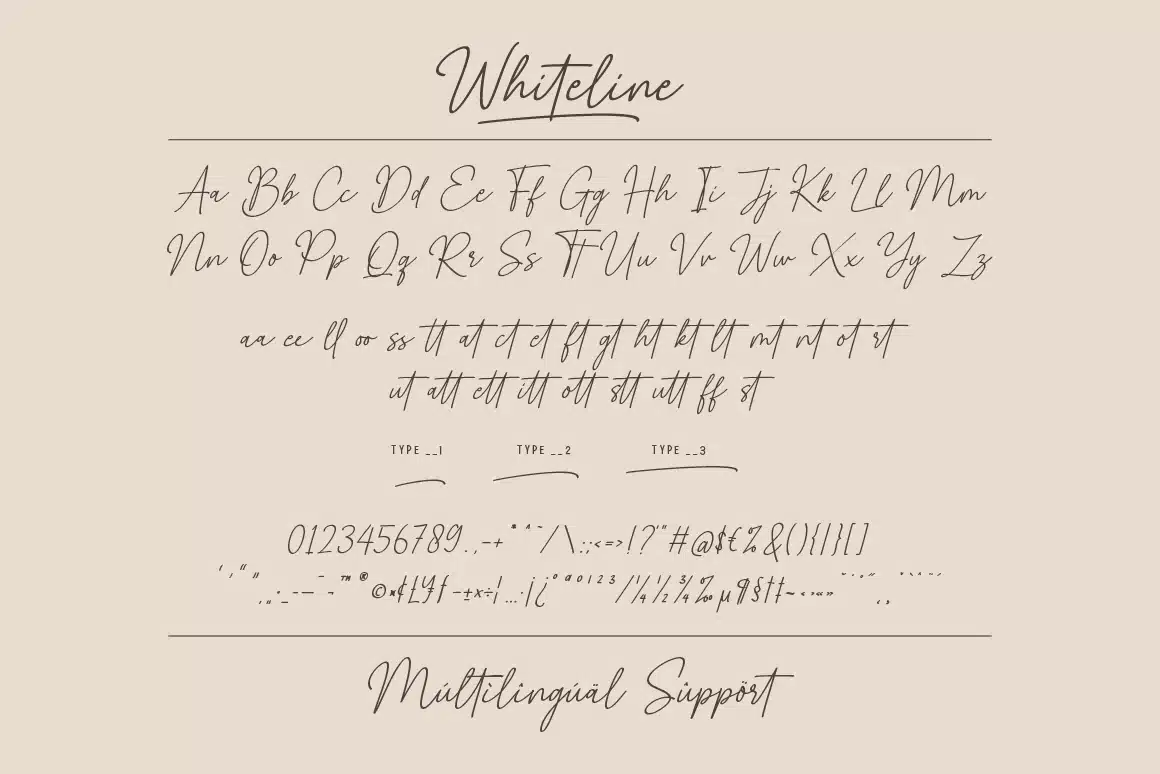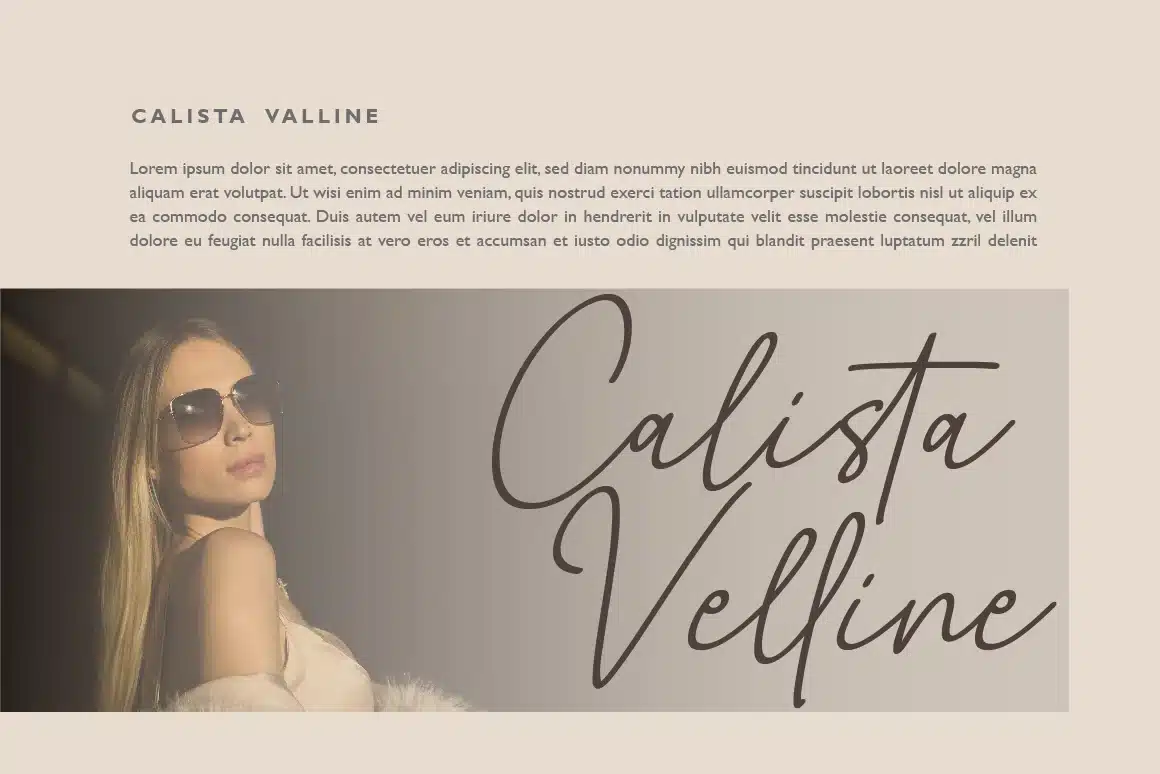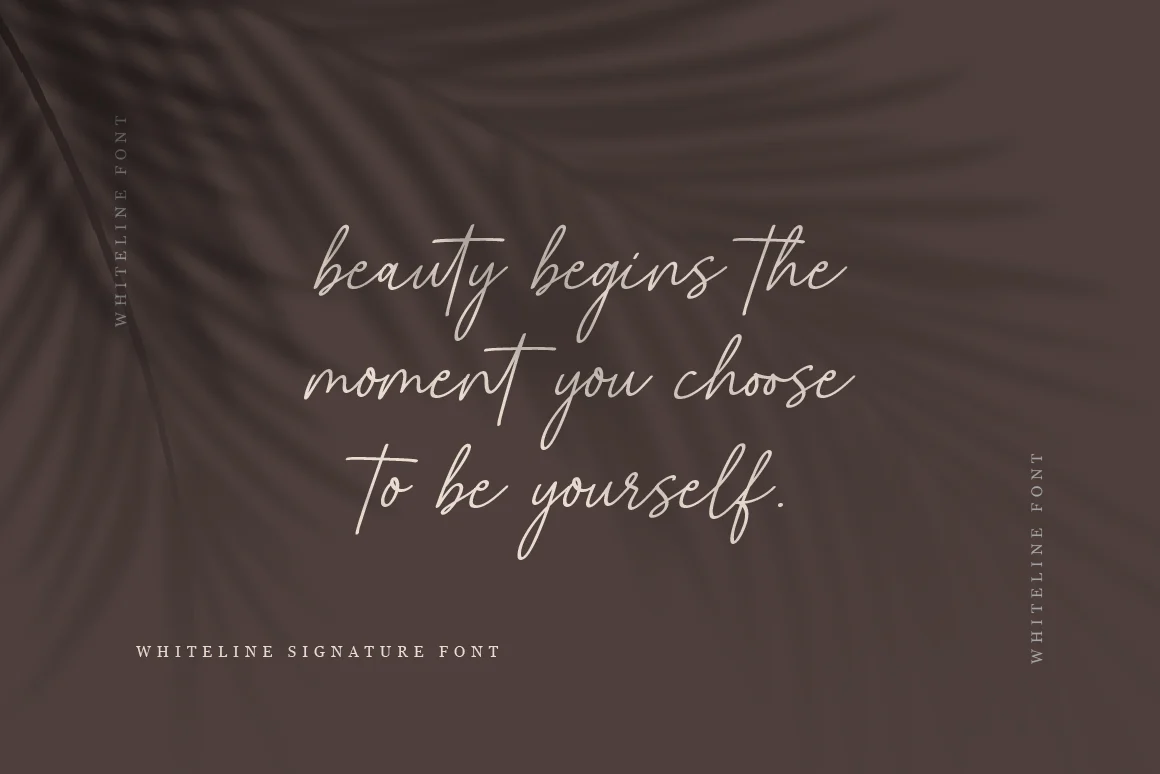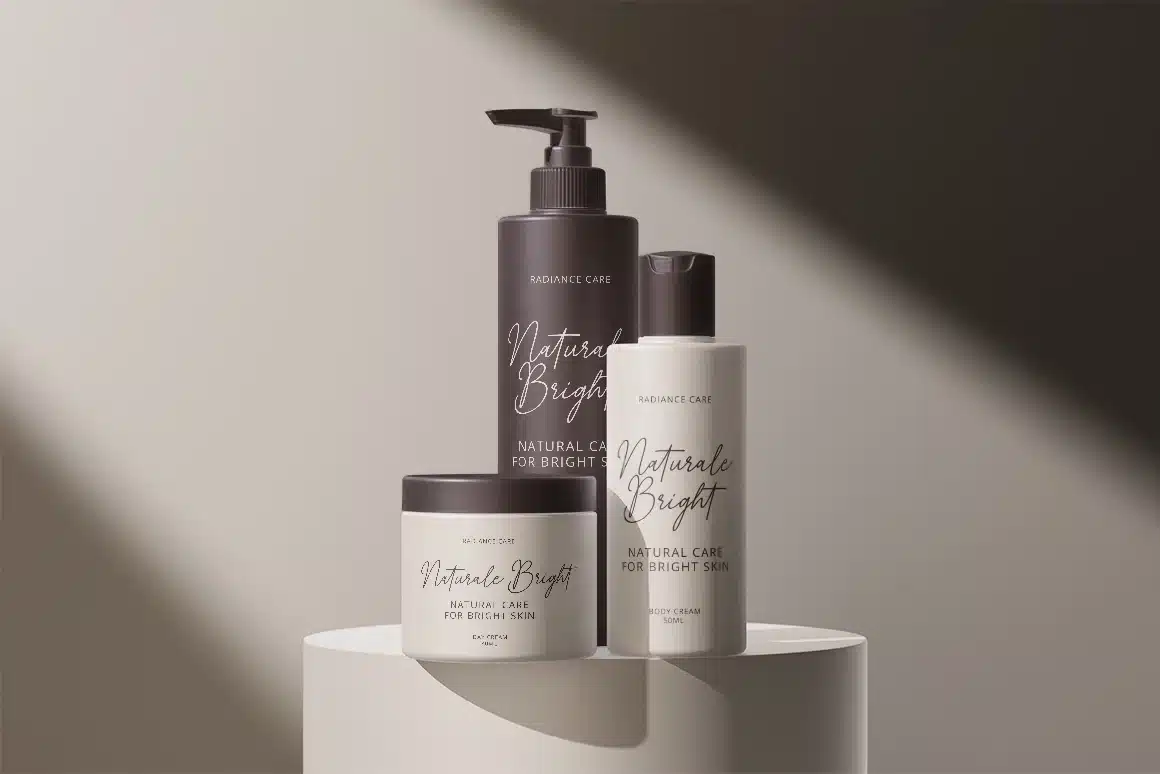
Whiteline – Signature Script Font
Whiteline is a graceful handwritten script typeface with smooth flowing strokes and natural signature charm. Perfect for logos, fashion branding, beauty packaging, invitations, social media, and stylish editorial designs. It delivers a soft, modern, and sophisticated look that enhances any visual identity.
Create elegant and personal designs with the beauty of Whiteline.